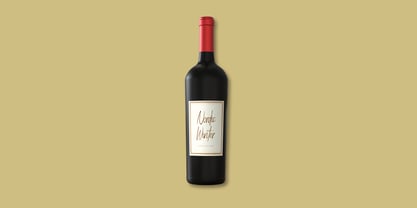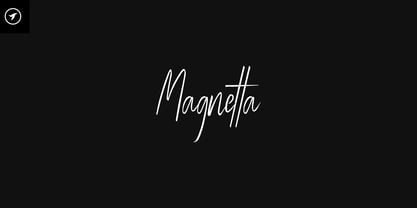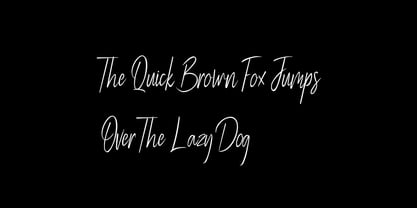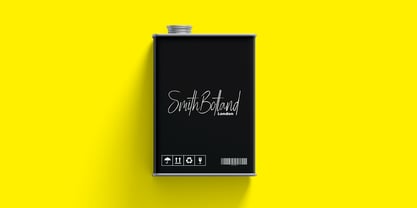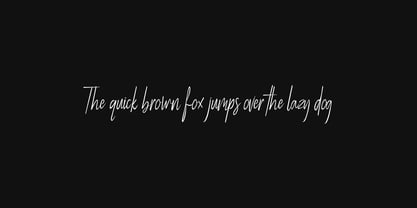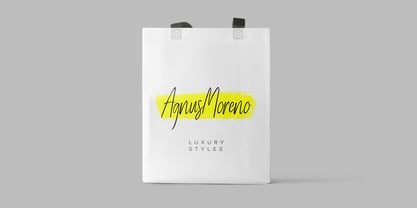
Magnetta Handwriting
by Designova
The Magnetta Handwriting Font Family was designed by Lisha Joseph and published by Designova. Magnetta Handwriting contains 1 styles.
Magnetta is a lovely, beautiful handwritten font for luxury / signature / branding / logotype / wedding invites / greeting cards / promotional graphics. Magnetta is handcrafted with a custom brush, having perfection and aesthetics at its level best
Advanced Kerning: We have performed advanced, in-depth kerning to ensure the font looks amazing on all possible letter combinations.